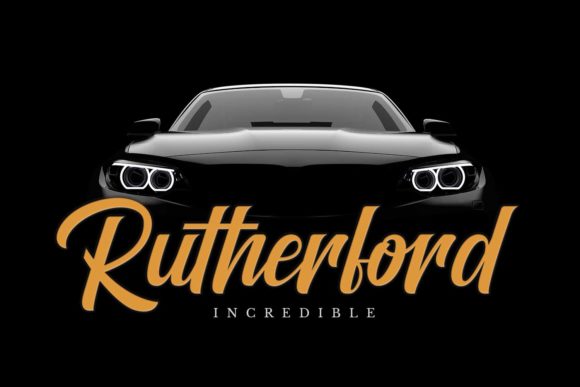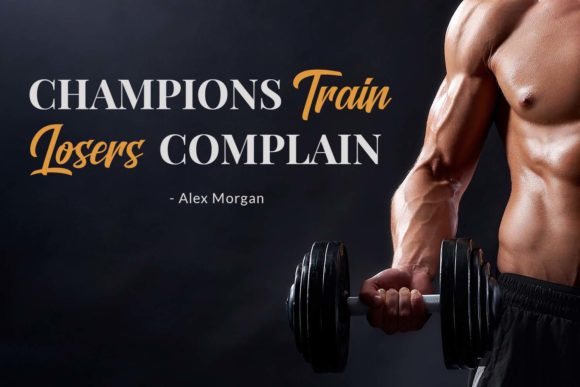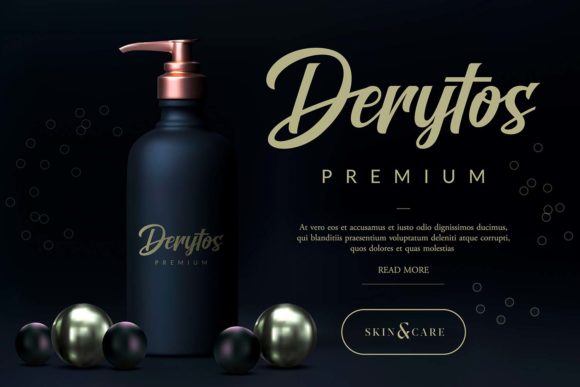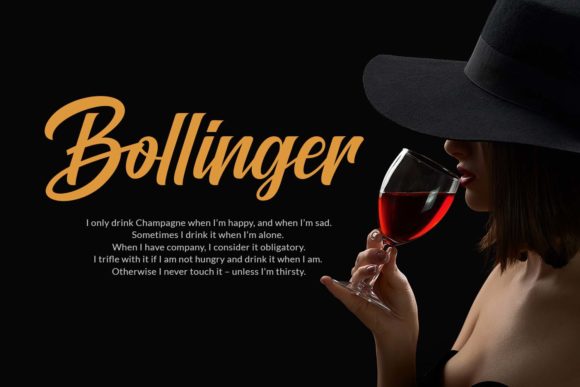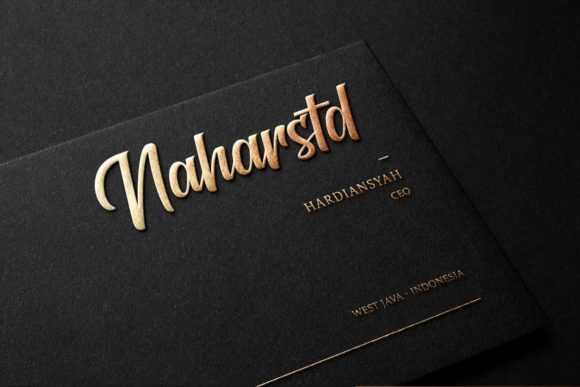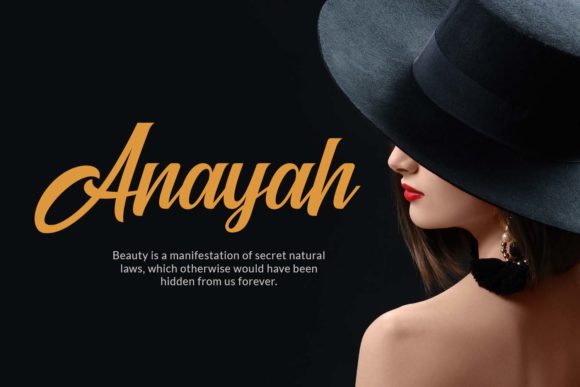
Discover the Elegance of Brightons Font: A Perfect Choice for Designers and Crafters
Are you looking for a font that exudes charm and elegance? Look no further than Brightons Font. This beautiful, handwritten font is perfect for adding a touch of sophistication to any design project. Whether you’re working on wedding invitations, thank you cards, quotes, greeting cards, logos, business cards, or any other design that needs a personal touch, Brightons Font is an excellent choice.
The Charm of Brightons Font
Brightons Font feels equally charming and elegant, making it an ideal choice for designers and crafters who want to add a touch of whimsy to their work. The font’s elegant script and flowing lines make it perfect for creating beautiful, eye-catching designs that are sure to impress. With Brightons Font, you can create stunning designs that are both modern and timeless.
Versatility of Brightons Font
One of the best things about Brightons Font is its versatility. This font can be used for a wide range of design projects, from wedding invitations and greeting cards to logos and business cards. Its elegant script and flowing lines make it perfect for creating beautiful, professional-looking designs that are sure to impress. Whether you’re working on a personal project or a client’s design, Brightons Font is a great choice.
Brightons Font is PUA encoded, which means you can access all of the glyphs and swashes with ease. This makes it easy to customize your designs and add your own personal touch. With PUA encoding, you can easily access the font’s built-in features, such as ligatures, stylistic alternates, and swashes, to create unique and beautiful designs.
Why Designers and Crafters Love Brightons Font
Designers and crafters love Brightons Font for its elegance, versatility, and ease of use. This font is perfect for anyone who wants to add a touch of sophistication to their designs. With Brightons Font, you can create beautiful, professional-looking designs that are sure to impress. Whether you’re working on a personal project or a client’s design, Brightons Font is a great choice.
Brightons Font is a popular choice for wedding and event designs. Its elegant script and flowing lines make it perfect for creating beautiful wedding invitations, thank you cards, and other event materials. With Brightons Font, you can create stunning designs that are both modern and timeless.
Tips for Using Brightons Font
Here are a few tips for using Brightons Font:
- Use Brightons Font for designs that need a personal touch, such as wedding invitations and thank you cards.
- Experiment with different font sizes and colors to create unique and eye-catching designs.
- Use the font’s built-in features, such as ligatures and swashes, to add a touch of elegance to your designs.
- Pair Brightons Font with other fonts to create a unique and interesting design.
In conclusion, Brightons Font is a beautiful, elegant font that is perfect for designers and crafters who want to add a touch of sophistication to their designs. With its charming and elegant script, flowing lines, and PUA encoding, Brightons Font is an excellent choice for a wide range of design projects. Whether you’re working on a personal project or a client’s design, Brightons Font is a great choice.